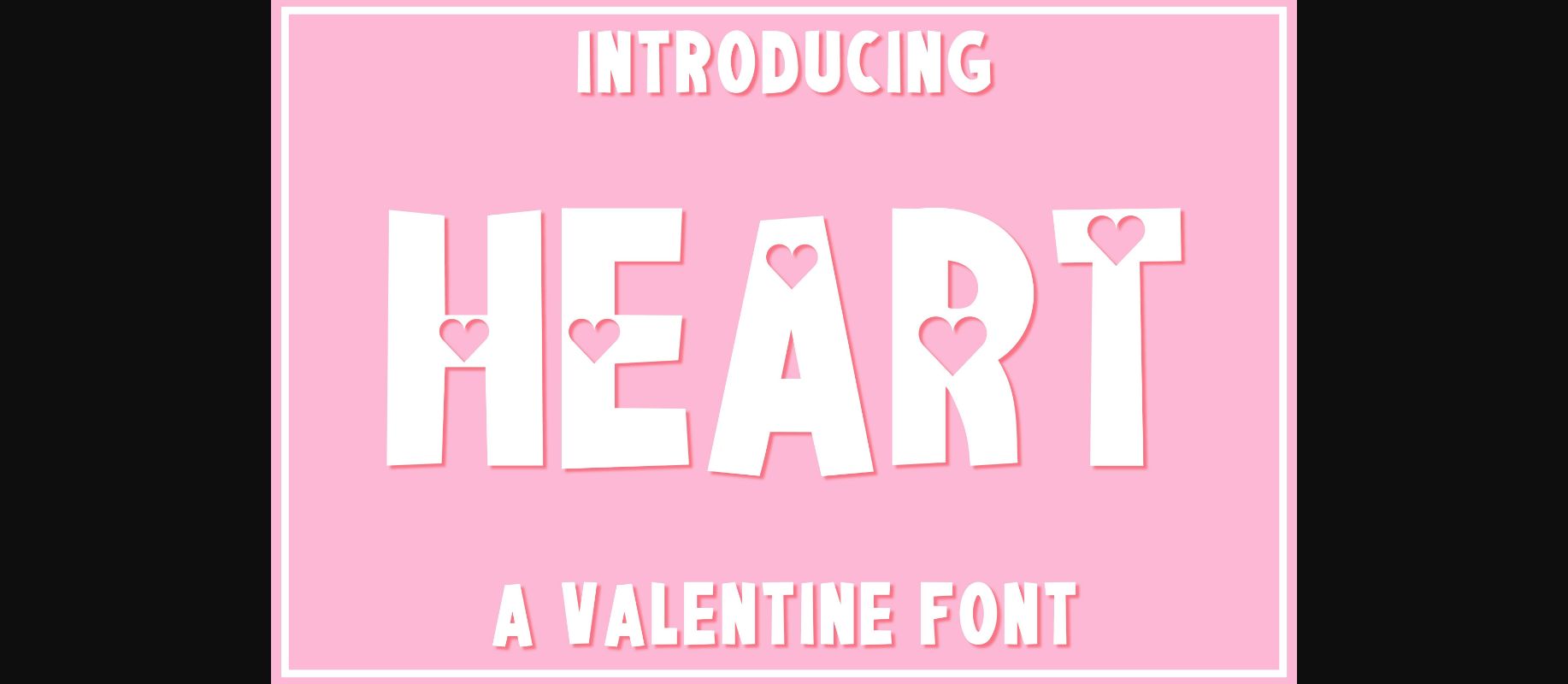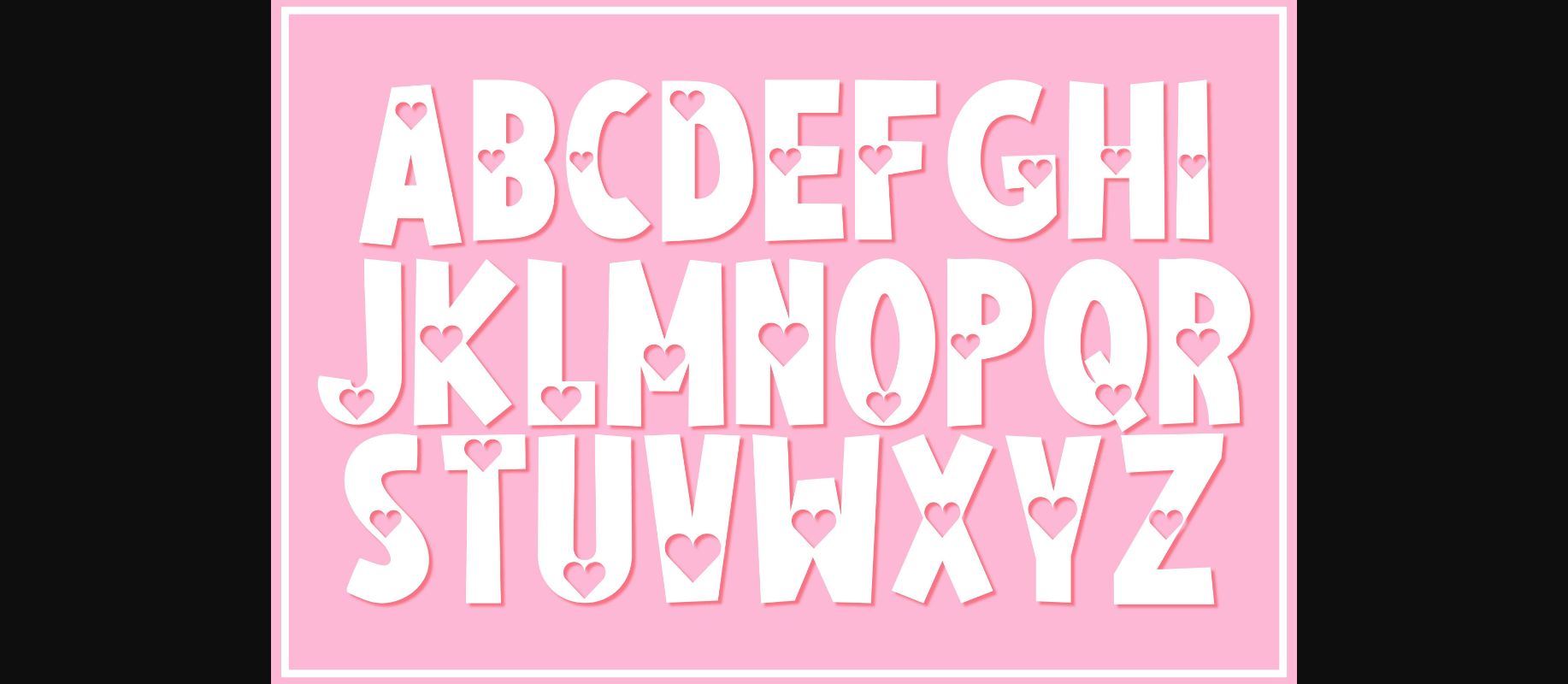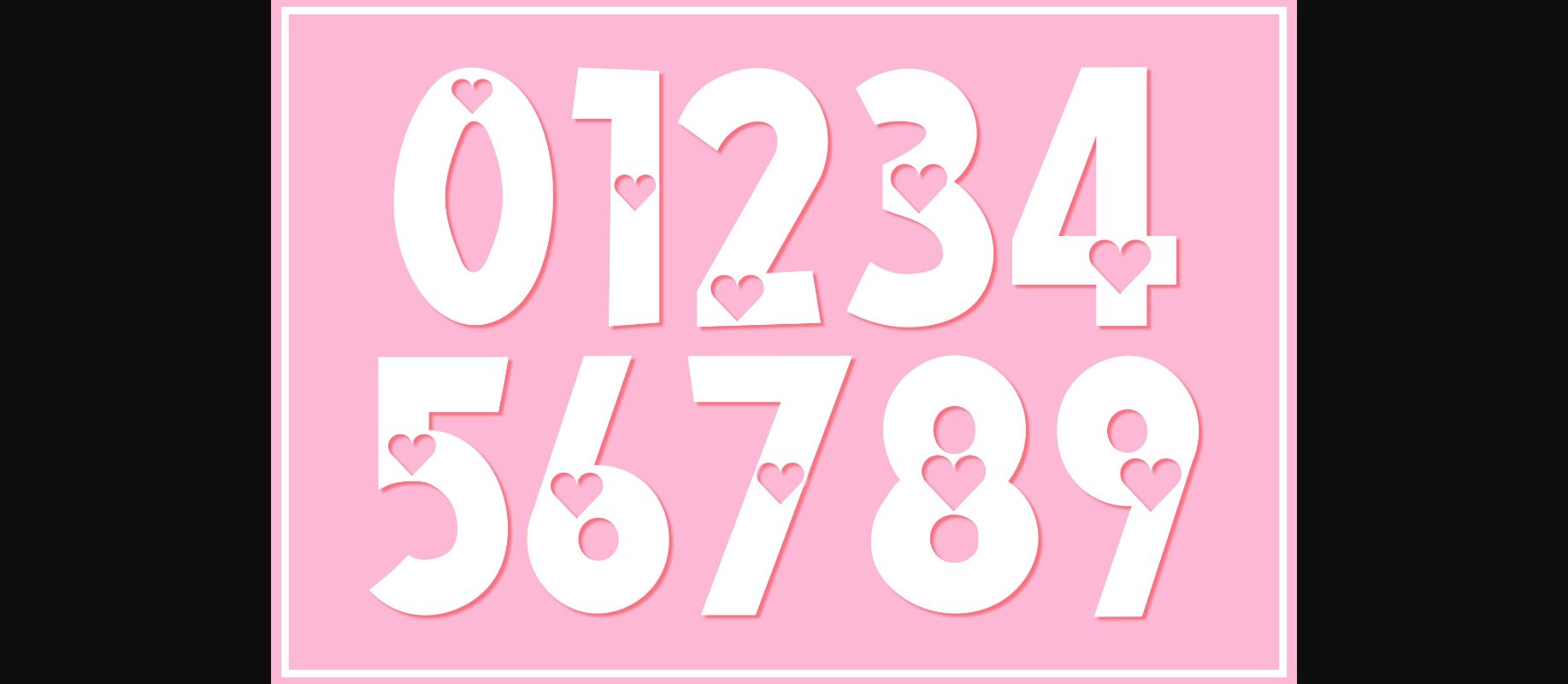
Heart Font
About Heart Font
Heart is a lovely and sweet decorative font. Its adorable charm and cute decorative elements are perfect for all your Valentine’s Day projects.